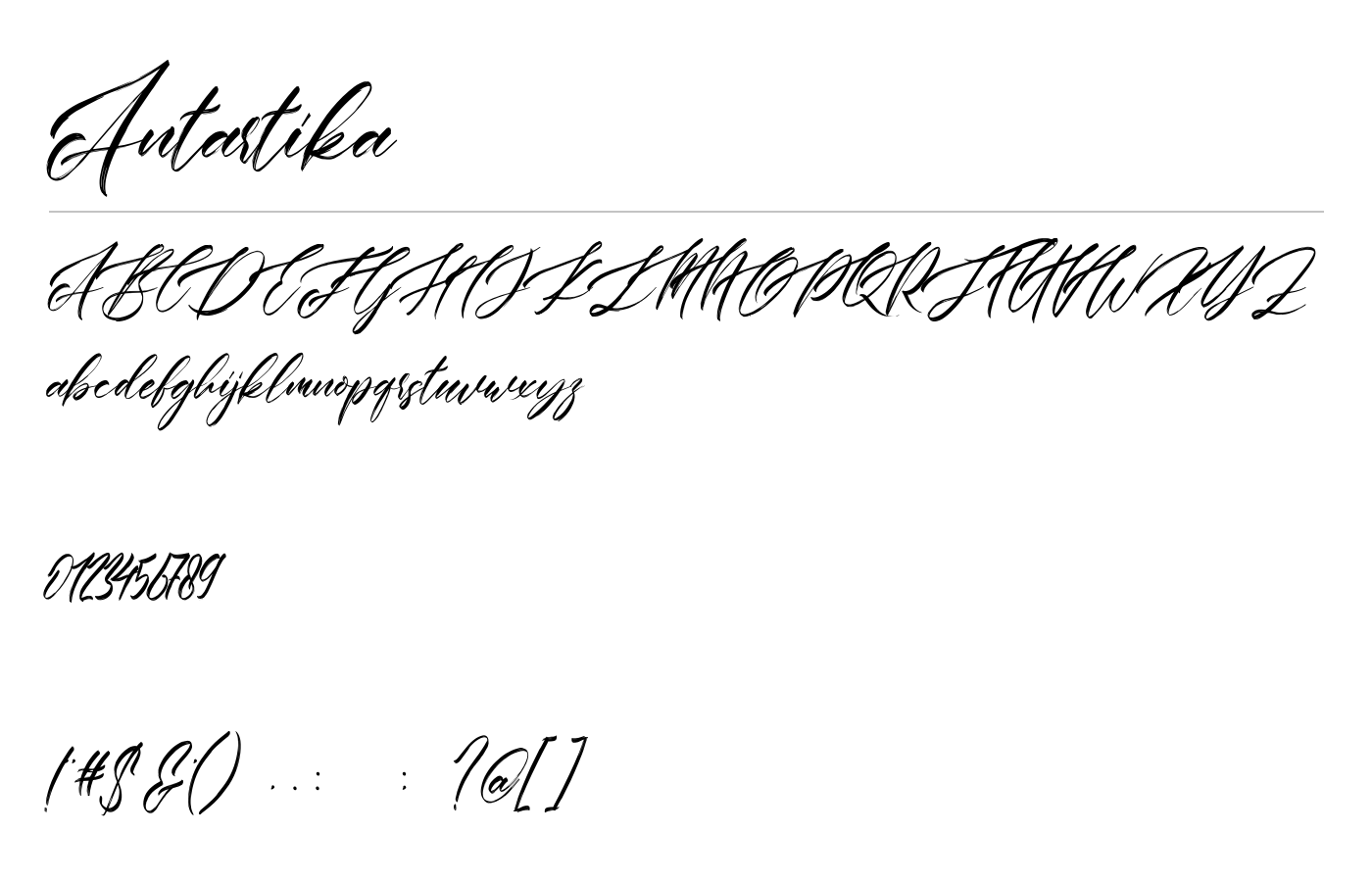
Antartika is an elegant script font with a flowing, handwritten style that combines delicate thin strokes with occasional bold, dynamic swashes. Its fluid letterforms and high contrast evoke a sense of sophistication and creativity, making it ideal for fashion branding, invitations, and artistic logos. This font shines in designs where a personal, stylish touch is desired while maintaining readability and graceful charm.
Antartika Font